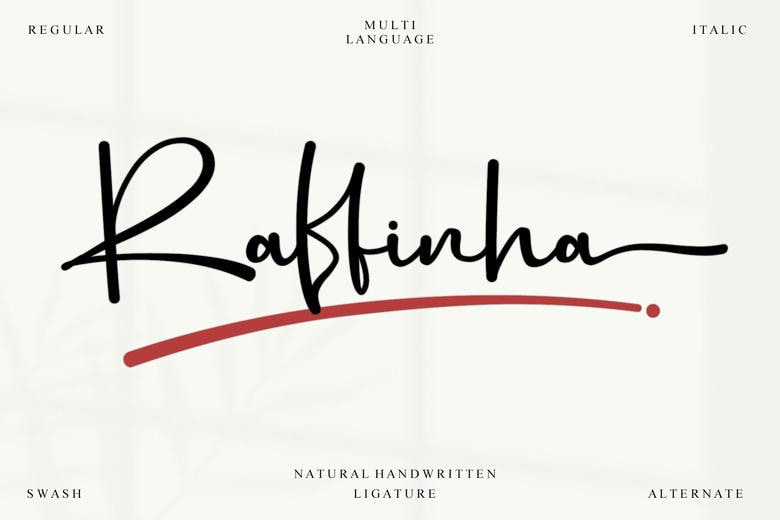
Raffinha Font
Meet Raffinha- your ideal selection of authenticity and pure art. A natural handwritten font that resembles handwriting close enough, Raffinha will add organic fluency and individual style to anything you use it in your designs. Whenever you require a human touch or the natural flair of freehand lines,
Raffinha is the complete other font that ensures your works of designs will be improved. Suits logos, invitations and any art work where personality and individualism is important. Own the unique elegance of Raffinha, and have the rhythm of your visual narrative flow.
Raffinha Handwritten Script Font